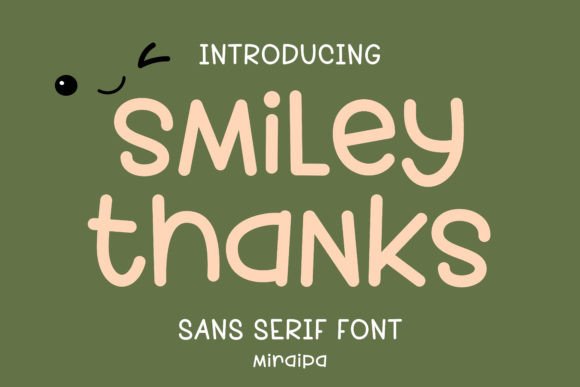
Introducing Smiley Thanks, the best font for vintage sign projects! Designed by miraipa, this cute and friendly handwritten sans serif font is perfect for adding a touch of personality to your next project. With its unique style, Smiley Thanks will make your designs stand out and catch the eye of anyone who sees them.
Whether you're working on a project for Easter, back to school, weddings, party decorations, invitations, Fall, Halloween, Christmas, posters, blogs, clothing, child-related designs, greeting cards, social media posts, or anything else that needs a friendly touch, Smiley Thanks is the font for you. It's versatile enough to be used in a wide range of designs, and its charming style is sure to make your work look its best.